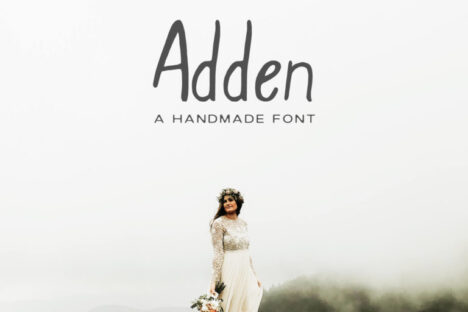
- Adden Handmade Sans Serif Font
Adden Regular
Adden is a modernistic handmade sans serif font written with soft hand to produce a high quality font. It will look great for greeting cards, branding materials, wedding postcard, business cards, quotes, posters, small business, book covers, stationery, marketing, magazines and more.